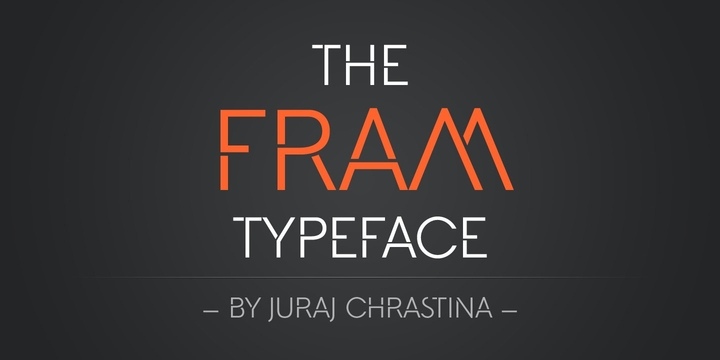
Fram Font
Fram Font is perfect for architectural branding projects, construction company logos, engineering presentations, industrial design portfolios, modern signage systems, and structural visualization materials. This robust typeface excels in technical documentation, blueprint annotations, corporate identity systems, and any application where strength, precision, and structural integrity communicate professional excellence.
What makes Fram Font so exciting is its remarkable ability to convey stability and engineering precision through its carefully constructed letterforms. The font features clean geometric lines, optimal proportions, and structural balance that mirror the principles of good architecture and design. Its solid foundation and reliable character make it ideal for projects that require trust, durability, and professional competence.
Fram Font comes in a comprehensive family including Thin, Light, Regular, Medium, Bold, and Heavy weights. Each style features complete uppercase and lowercase character sets, technical symbols, precise numerals, and engineering-inspired punctuation marks. The font family also includes condensed and extended variants, providing designers with flexible options for space-efficient layouts and impactful headline treatments.
This dependable typeface represents the intersection of form and function in modern typography. Fram Font Free Download offers professionals in technical fields an opportunity to enhance their communications with typography that reflects their commitment to quality and precision. Whether you're developing brand identities for construction firms, creating technical presentations, or designing wayfinding systems, this font delivers unwavering reliability and professional strength.
The font's structural integrity makes it particularly suitable for engineering companies, architectural firms, manufacturing businesses, and technical service providers. Its exceptional clarity ensures that Fram Font performs flawlessly across all media while maintaining its distinctive professional character. The font's ability to inspire confidence and communicate expertise makes it an essential tool for any project where credibility, precision, and structural soundness are paramount to success.